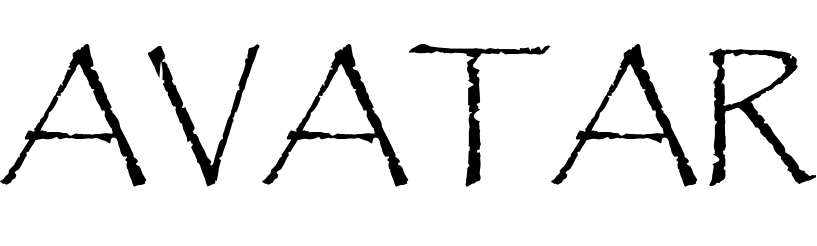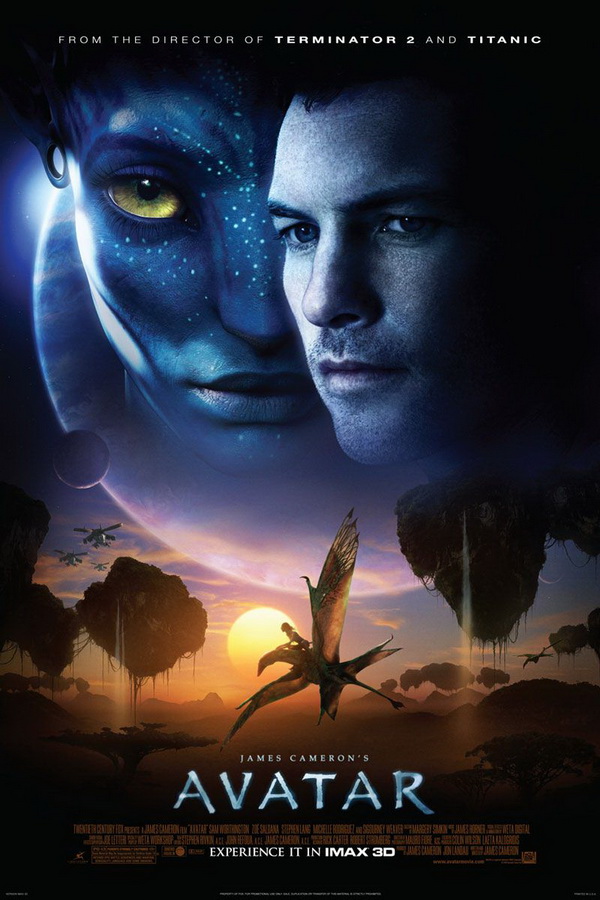
Avatar Font
ActionAvatar is a sci-fi epic directed by James Cameron, following the story of a paraplegic ex-Marine sent to the alien planet of Pandora, where he falls in love with the Na'vi people and leads a rebellion against human invaders.
The movie's title "Avatar" in the poster bears resemblance to Chris Costello's Papyrus font. This font is highly popular and can be acquired for commercial use here.